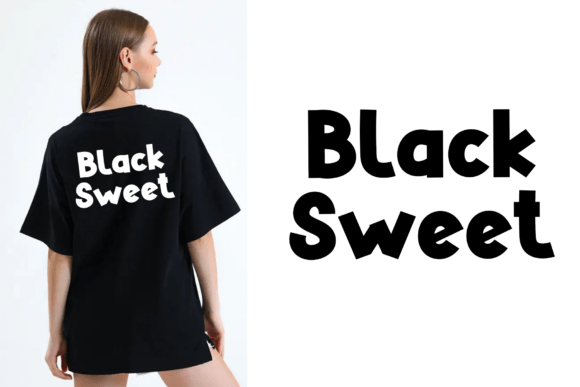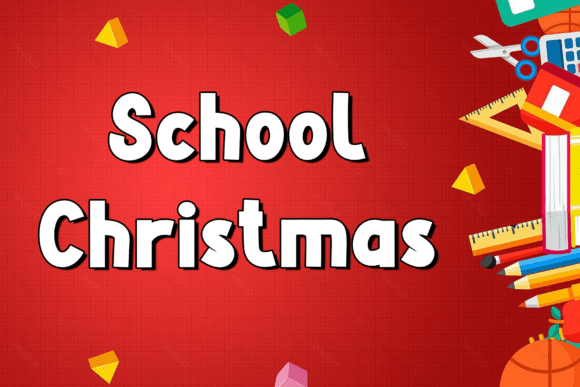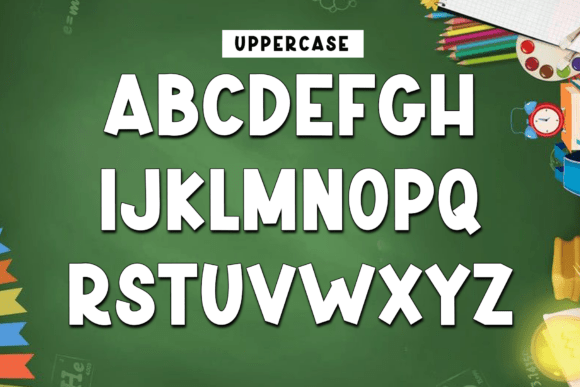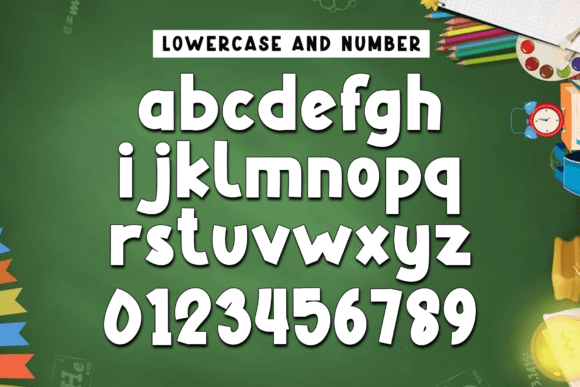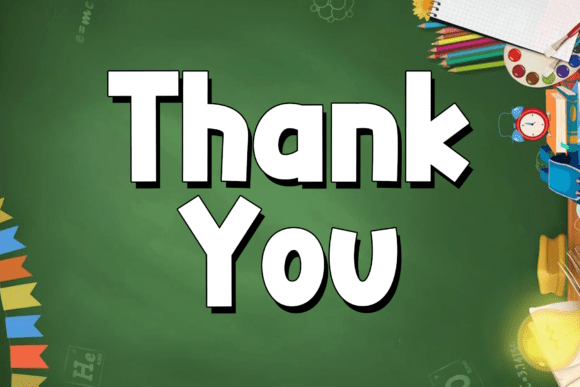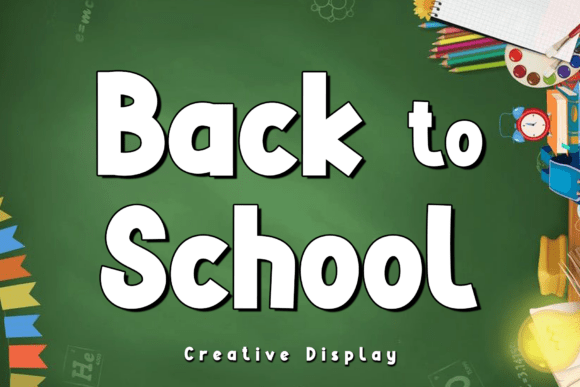
Introducing Back to School Font: The Perfect Companion for Educational and Kid-Focused Designs
As the new academic year approaches, designers and crafters are on the lookout for the perfect font to capture the spirit of learning, creativity, and fun. Look no further than the Back to School font, a bold, cheerful display font designed to bring a sense of excitement and joy to educational and kid-focused designs.
A Font that Embodies the Spirit of Learning
The Back to School font is more than just a font – it’s a design companion that embodies the spirit of learning, creativity, and fun. With its playful curves, clean structure, and friendly letterforms, this font is perfect for designers and crafters who want to create engaging and interactive designs for kids. Whether you’re designing educational materials, crafting party invitations, or creating social media graphics, the Back to School font is sure to delight young audiences and inspire a love of learning.
What Makes Back to School Font So Special?
So, what sets the Back to School font apart from other fonts? Here are just a few features that make it a standout:
- Playful Curves: The Back to School font features playful curves that give it a friendly, approachable feel. These curves add a touch of whimsy and fun to any design, making it perfect for kid-focused projects.
- Clean Structure: Despite its playful curves, the Back to School font has a clean and structured design that ensures easy readability. This makes it perfect for use in educational materials, such as textbooks, workbooks, and activity sheets.
- Youthful Charm: The Back to School font has a youthful charm that’s sure to appeal to kids and young adults. Its friendly letterforms and lively curves create a joyful mood that’s perfect for designs that need to engage and inspire young audiences.
- Hand-Crafted Feel: The slight irregularities and whimsical shapes in the Back to School font give it a hand-crafted, classroom-inspired feel. This makes it perfect for designs that need to evoke a sense of creativity and imagination.
Why Choose Back to School Font?
There are many fonts to choose from, but here are just a few reasons why the Back to School font stands out:
- Easy Readability: The Back to School font is designed to be easy to read, even at small sizes. This makes it perfect for use in educational materials, such as textbooks, workbooks, and activity sheets.
- Versatility: The Back to School font is versatile and can be used in a variety of designs, from educational materials to party invitations and social media graphics.
- Fun and Engaging: The Back to School font is designed to be fun and engaging, making it perfect for designs that need to capture the attention of young audiences.
How to Use Back to School Font in Your Designs
The Back to School font is easy to use and can be incorporated into a variety of designs. Here are just a few ideas to get you started:
- Educational Materials: Use the Back to School font in educational materials, such as textbooks, workbooks, and activity sheets.
- Party Invitations: Create fun and engaging party invitations with the Back to School font.
- Social Media Graphics: Use the Back to School font in social media graphics, such as Facebook posts, Instagram stories, and Twitter headers.
- Crafting Projects: Incorporate the Back to School font into your crafting projects, such as handmade cards, gift tags, and scrapbook pages.
The Back to School font is a bold, cheerful display font that’s perfect for educational and kid-focused designs. With its playful curves, clean structure, and friendly letterforms, this font is sure to delight young audiences and inspire a love of learning. Whether you’re a designer or crafter, the Back to School font is a great addition to your design toolkit. So why wait? Download the Back to School font today and start creating engaging and interactive designs that capture the spirit of learning, creativity, and fun!